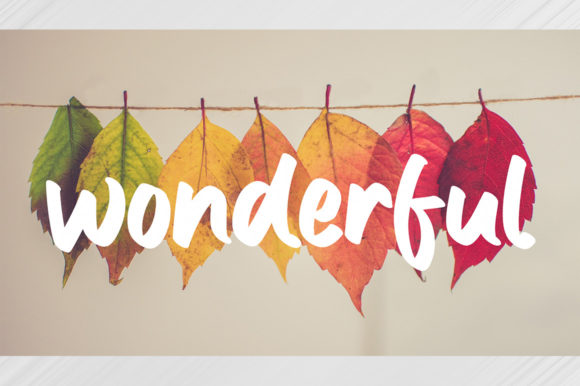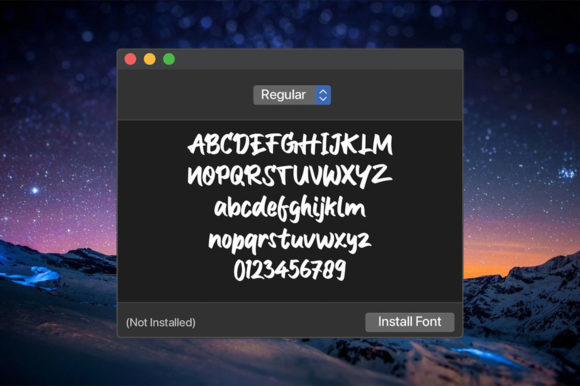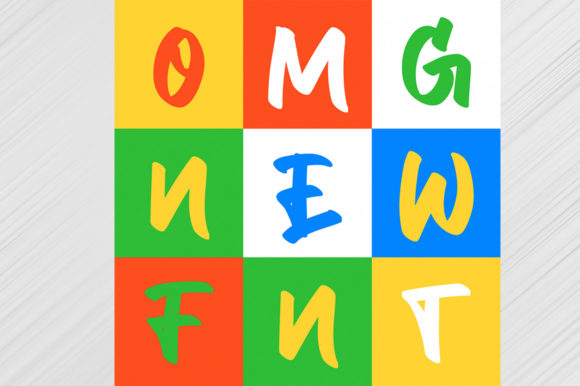
Wonderful Font
About Wonderful Font
Wonderful is a handwritten, brush-like font. It looks stunning on photography designs, wedding invitations, thank you cards, quotes, greeting cards, logos, business cards, and any other design that requires a font that is different from the rest. This font is suitable for all aspects of design.